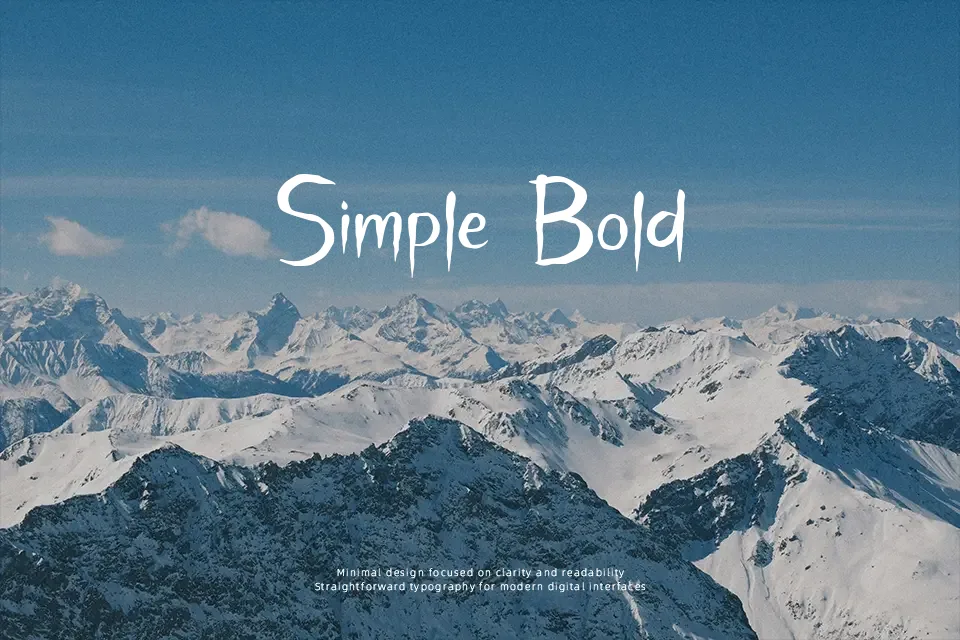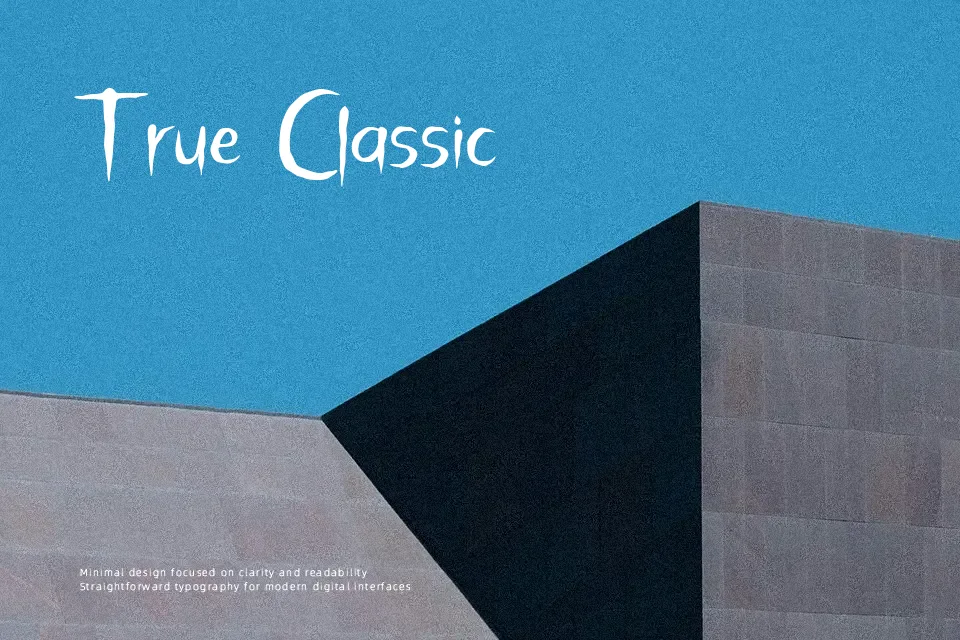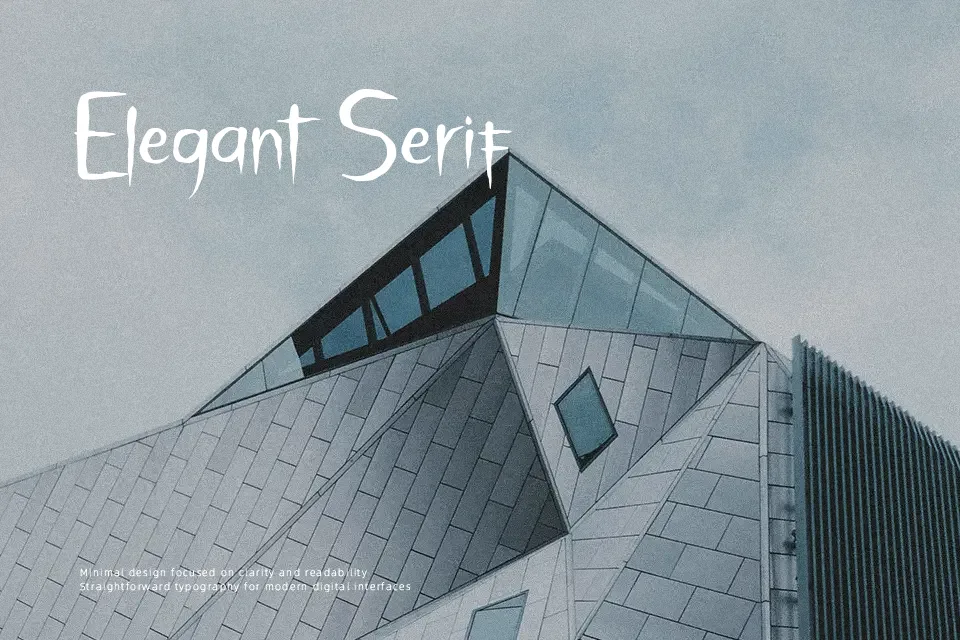
Chilling Trickster Font
Chilling Trickster Font performs best when deployed as high-impact display titling, where its aggressive, textured letterforms and jagged silhouettes can be fully appreciated. The typeface features jagged brush-like strokes with uneven edges, sharp terminals, and inconsistent stem thicknesses that create an unsettling visual rhythm. Proportions vary slightly between glyphs, while character spacing remains somewhat tight to preserve energetic tension in short headlines. Readability stays solid in large header sizes, but the intricate distressing quickly collapses in smaller environments. Consequently, the design is less suitable for dense body paragraphs or small interface text where legibility demands cleaner geometry.
Best For: horror movie posters, Halloween event flyers, video game titles, thematic apparel graphics
Not Ideal For: long paragraph text, corporate reports, mobile user interfaces, technical documentation
Perfect for film, gaming, and halloween, with a bold and brush style.